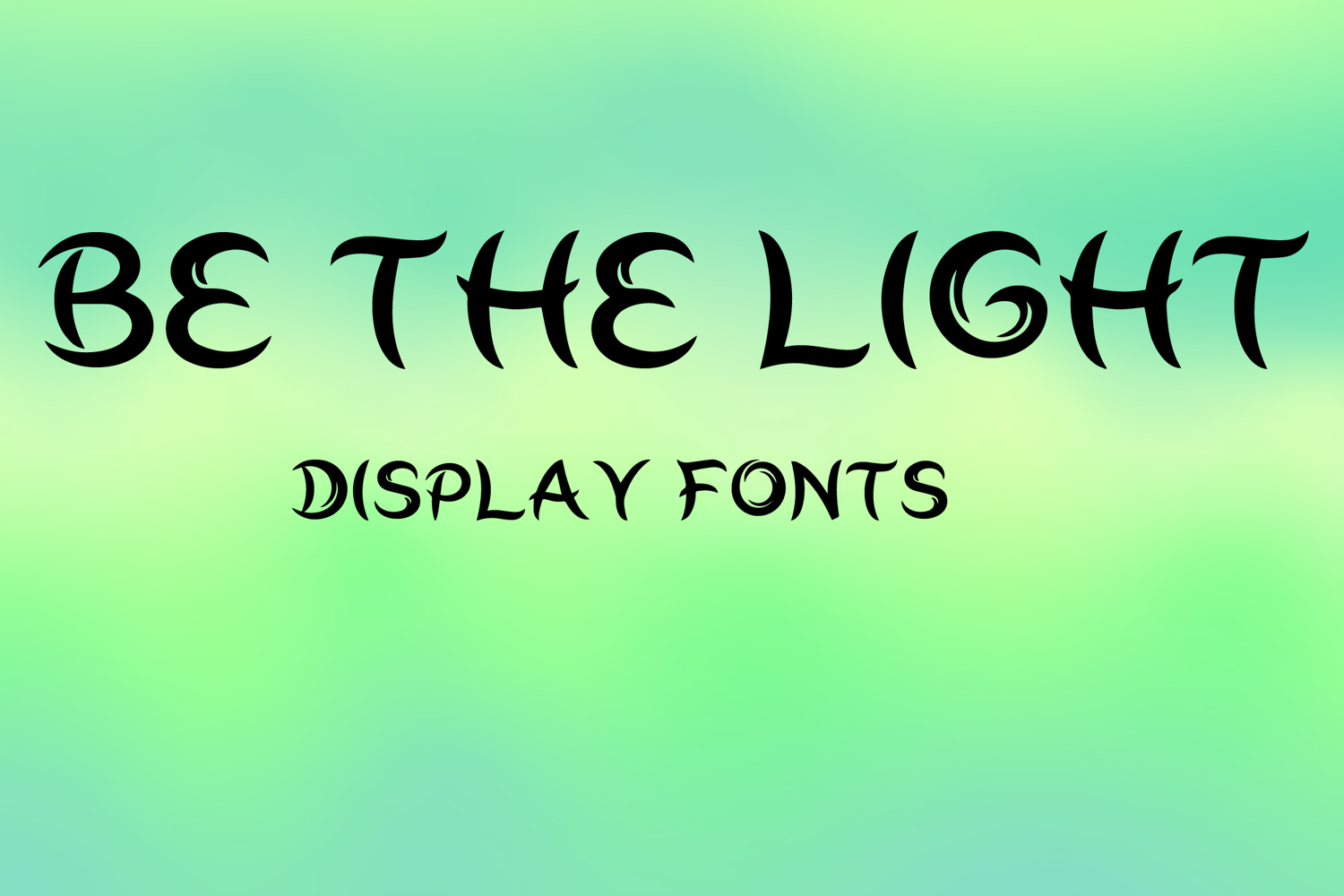
BE THE LIGHT
BE THE LIGHT is a whimsical decorative display font with a graceful artistic style and magical handcrafted charm. Its uppercase letterforms feature flowing curves, pointed terminals, and elegant spiral details that create a dreamy, expressive, and eye-catching look. Designed with uppercase letters A–Z and numbers 0–9, BE THE LIGHT is perfect for branding, posters, packaging, invitations, logos, social media graphics, and creative projects that need a radiant and memorable statement.
BE THE LIGHT